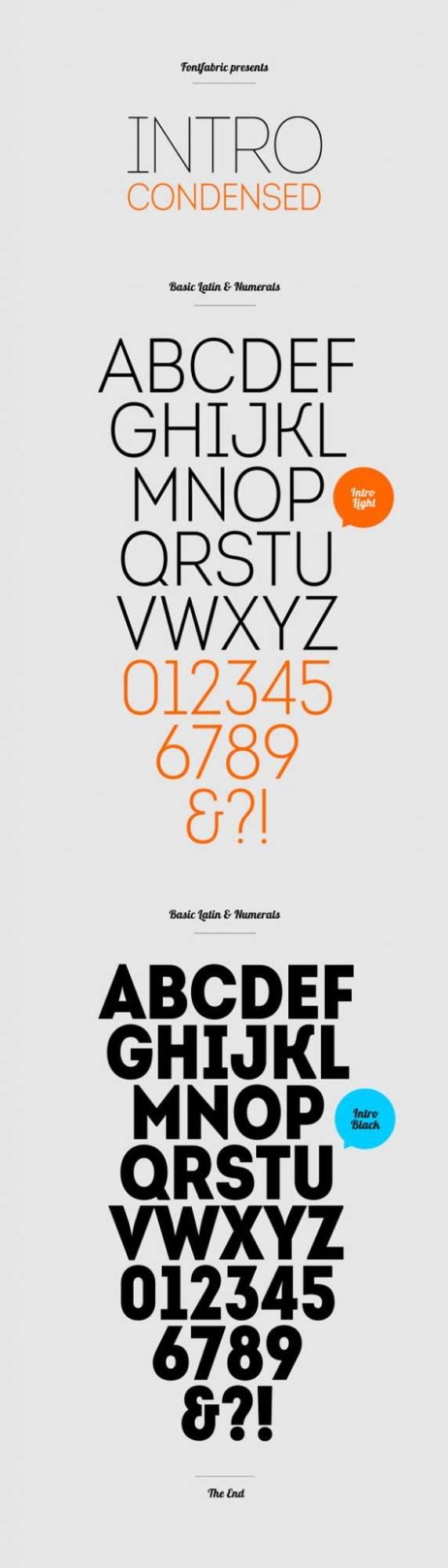
Free Font Of The Day #24 – Intro Condensed Font
Intro Condensed font (Light & Black)comes from FontFabric. The family is characterized by excellent legibility both in print and on the web, a well-finished geometric design, optimized kerning, etc. Intro is most suitable for headlines of all sizes, but it does well in a variety of text lengths as well. The font’s various styles give it the versatility necessary to meet any type of graphic design challenge — web, print, motion graphics, etc. — and make it perfect for t-shirts, posters, and logos.
Intro Condensed Font